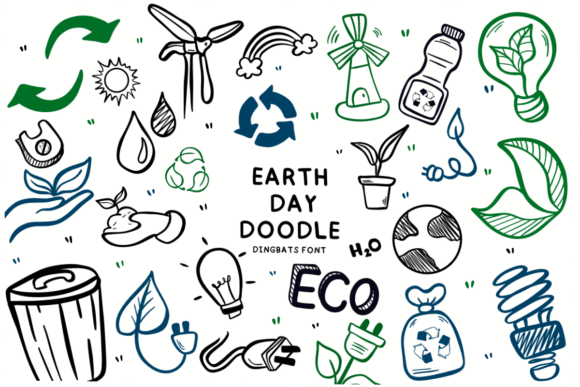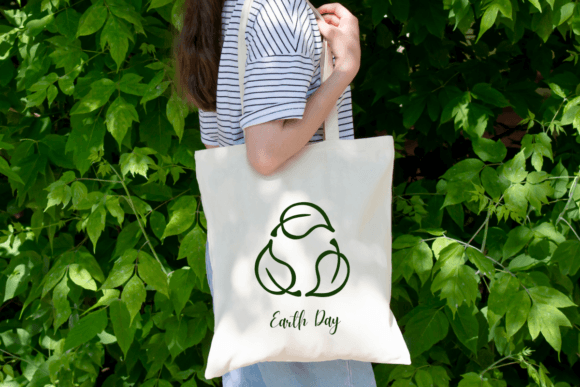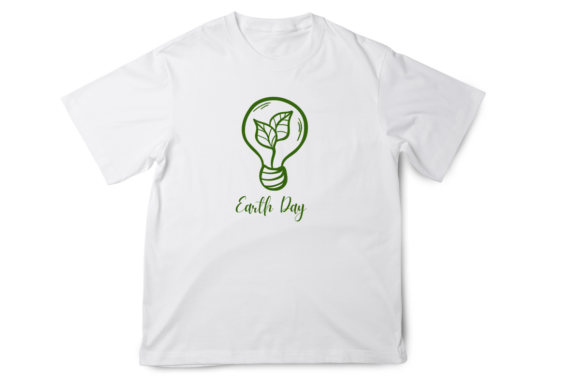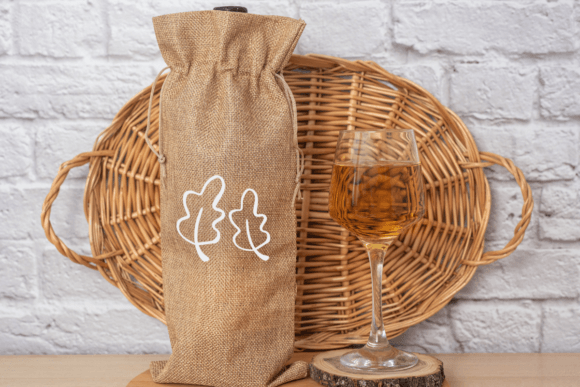
Earth Day Doodle Font: Eco-Friendly Dingbats for Cricut & DIY Projects
About the Earth Day Doodle Font
Let us introduce you to Earth Day Doodle Font, where timeless design meets modern craftsmanship. Earth Day Doodle is a dingbats font. You can use it for taking notes, writing a diary, or making greeting cards. However, you can still use it for other designs, such as banners, content, mugs, cards, shirts, stationery, social media posts, and more!
Its playful, hand-drawn style makes Earth Day Doodle ideal for projects needing a touch of whimsy and approachability. Consider using it for children’s books, eco-conscious branding, event posters, or social media graphics where a friendly, informal tone is desired. However, its decorative nature makes it unsuitable for large blocks of text or applications requiring high readability, such as body copy or user interfaces.
Pairing Earth Day Doodle effectively requires a contrasting font for balance. A clean sans-serif like Open Sans would provide a strong counterpoint, offering readability for supporting text. For a more sophisticated look, consider pairing it with a classic serif like Garamond for a blend of playfulness and elegance. Avoid pairing it with other highly decorative fonts, as this can create visual clutter.
Earth Day Doodle’s core personality is undeniably friendly and approachable, conveying a sense of lightheartedness and environmental consciousness. It’s a great choice for projects aiming for a casual, optimistic, and charming aesthetic.